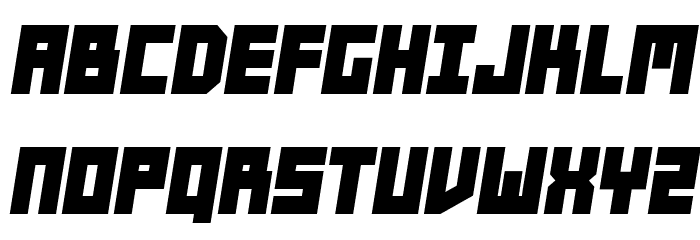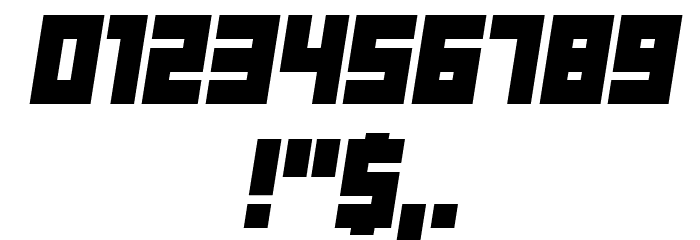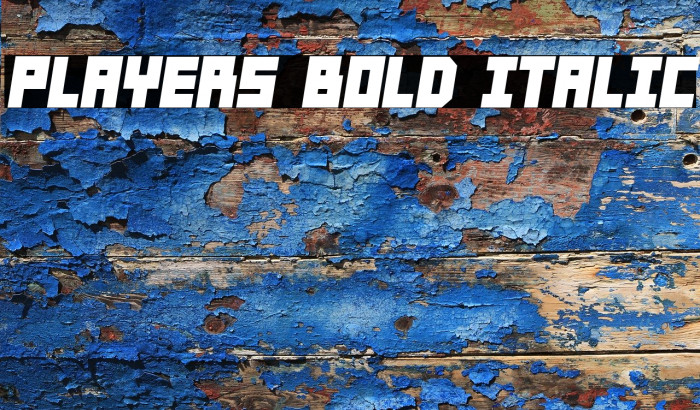
Players Bold Italic Font
This font exhibits a bold and italicized style with a strong geometric structure. The characters are designed with sharp angles and a blocky appearance, giving them a modern and assertive look. The uppercase letters are particularly striking, with a uniform height and consistent width, while the lowercase letters maintain the same boldness and angularity. The numbers are equally bold and maintain the geometric theme, ensuring readability and impact. Special characters are included, matching the overall aesthetic with a similar bold and angular design. This font is ideal for projects requiring a strong visual presence.
A bold, italicized font with a geometric and modern style.
- Proposed Projects: Ideal for sports branding, video game titles, posters, and any project needing a bold, modern look.